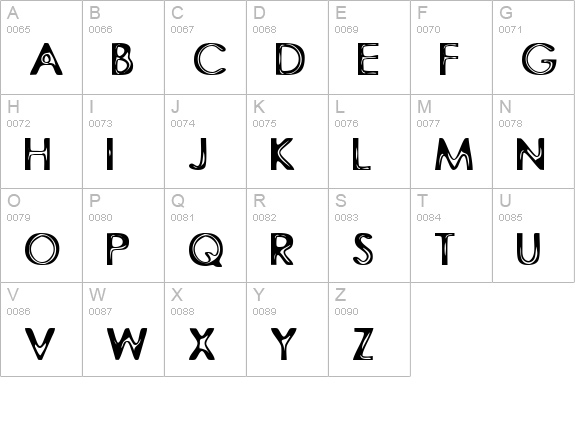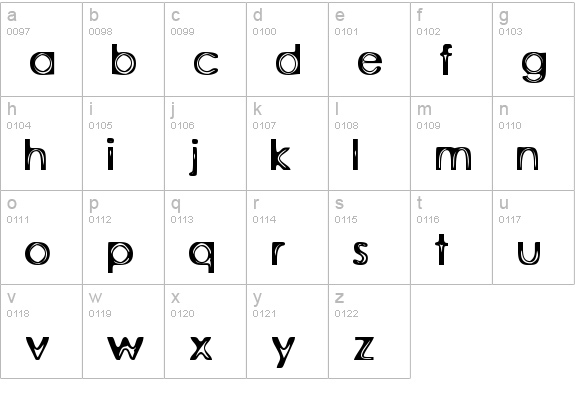
Introducing Rubber Walls font, a unique and playful typeface that adds a fun and energetic touch to any design project! With its bold and bouncy letterforms, Rubber Walls is sure to make your text stand out and grab attention. This font is perfect for posters, logos, headlines, and more where you want to add a touch of whimsy and creativity. The best part? Rubber Walls font is completely free to download at FontsMarket.com! So go ahead and give your designs a fresh and dynamic look with this exciting font. Let your creativity run wild with Rubber Walls font today!